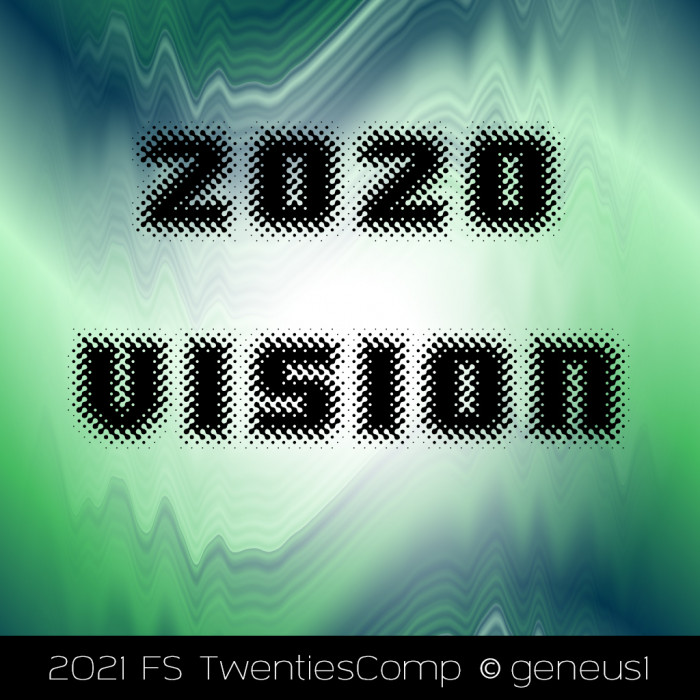
G1 2020 Vision
by geneus1
2020 Vision. It's ironic because 20/20 is supposed to represent clear vision. But this is what the vision of 2020 looked like. Nothing was clear. Except for the intuitive astrologers. As a group, they predicted things that were going to happen months before anything happened. Maybe we should start listening.
i have a weakness for letters with blurred outlines. nice!
One of the things I've enjoyed most about the twenties competition is how diverse the interpretations have been. Great font too with awesome construction.
Great effects, awesome composition, beautiful font. Congratulations!
@geneus1: G1 2020 Vision would have been my pick because of the seamless and delicate pattern you’ve created (only visible at higher magnification). I experimented with a similar pattern back in 2009 but could not make the corners to my satisfaction. Perhaps, I should revisit the problem armed with the new features of Fontstruct. Again, congratulations.
The creation of this font was a lot like going through 2020 for me. Maybe others can relate::
• Painstakingly creating each part of it while the outcome is something totally unclear.
• Knowing that no matter how carefully it is put together, communication will be out of focus.
• Finding some semblance of order out of chaos.
• If you zoom in, it can look like an intricate mess.
• What was regularly known was either fading away or wasn’t there anymore.
• By the end, much of what was normal seemed to be lost and gone forever.
Those who were lucky were able to see themselves more clearly in the process.
But the whole thing is more than an optical illusion.
Ironically, we are the ones that are halftoned now.
May we focus on the resiliency of clear vision from here.
Envision Peace.
Envision Overcoming.
Envision Joy.
Envision Freedom.
Envision Wellness.
Envision Equality.
Envision Love.
Envision a world where these visions have already happened.
I’ll meet you there.
dang i'm a sucker for dot fonts like these